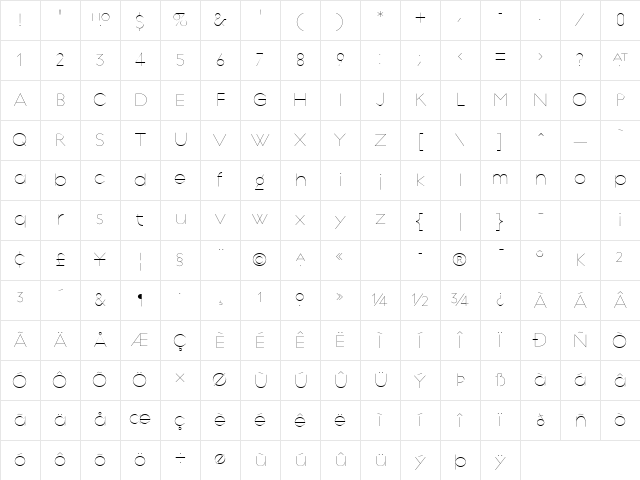
Regulator Thin Free Font
Regulator Thin
Style: Thin
Foundry: Rian Hughes . A Device font
Design Context for Regulator
Regulator is a composed and adaptable typeface that performs quietly and consistently across a wide range of design contexts. Its slender proportions lend an understated elegance to any composition.
Who designed the Regulator Thin font?